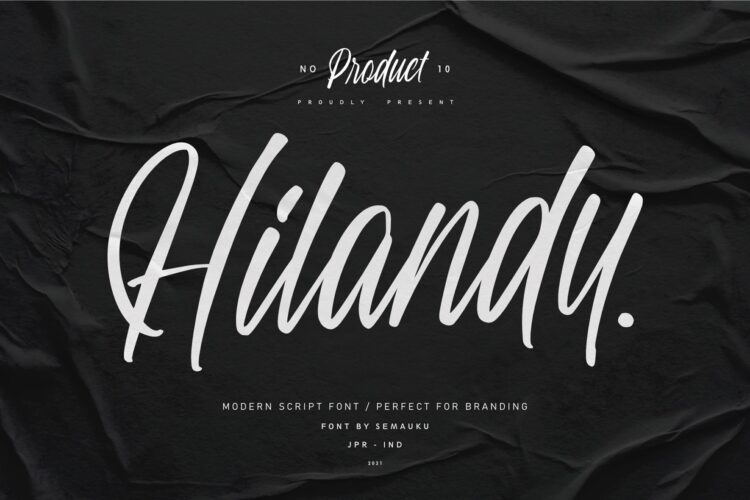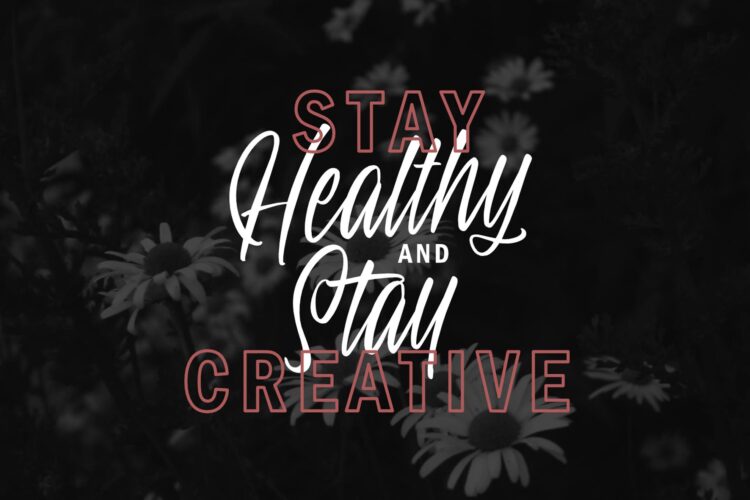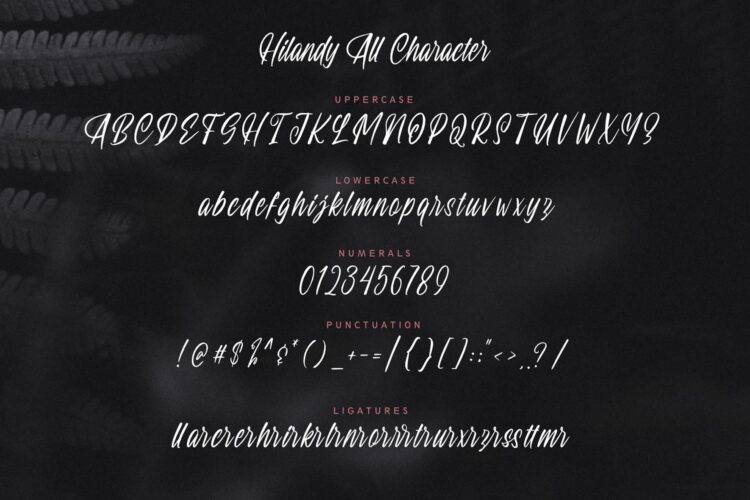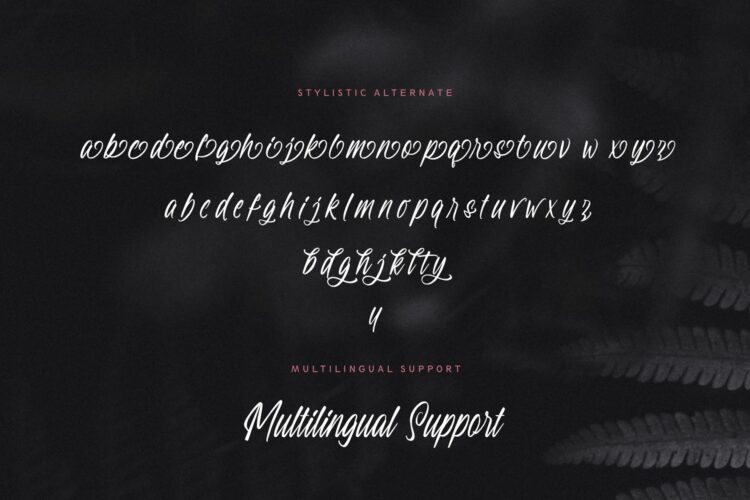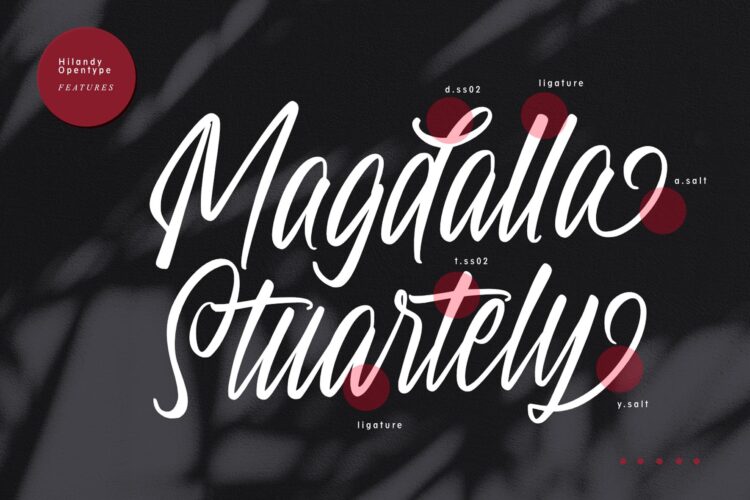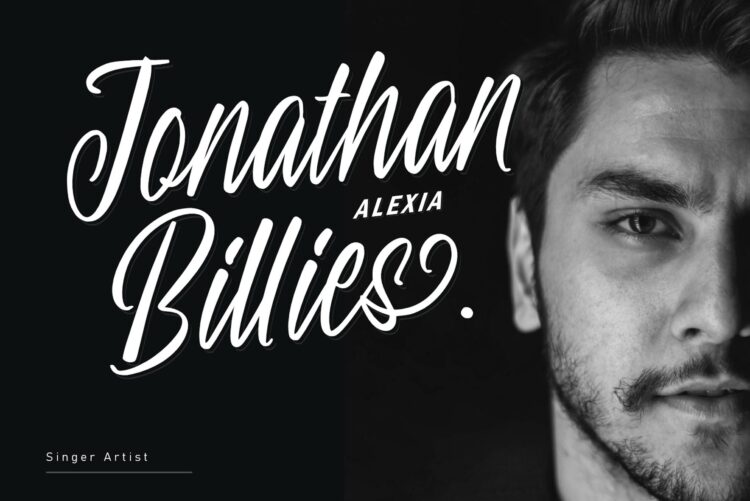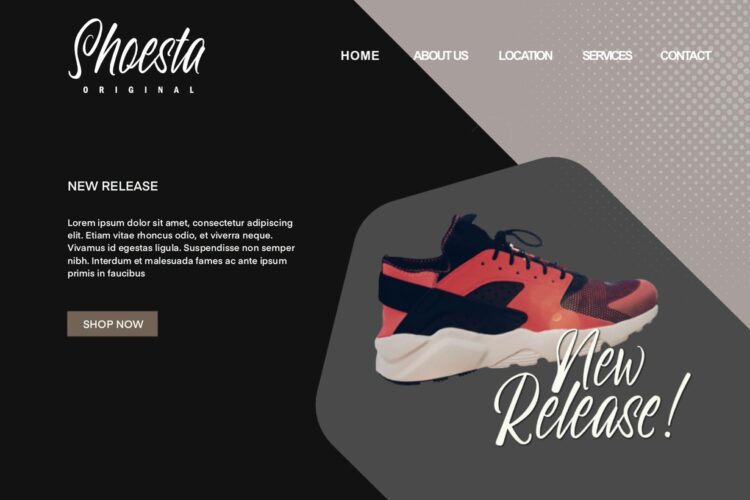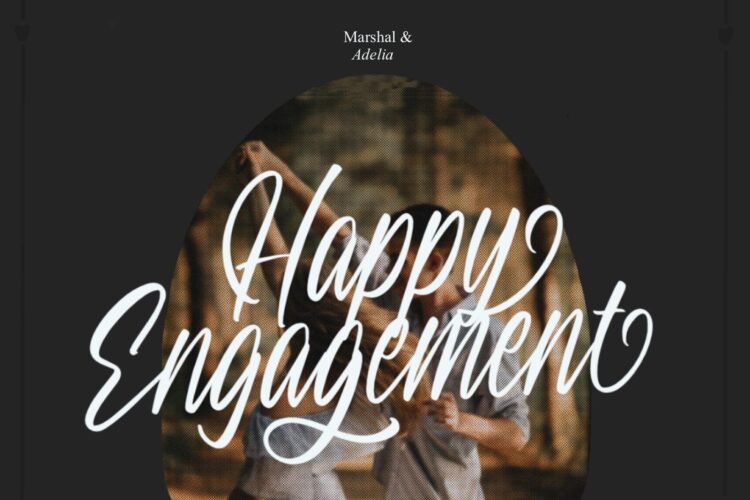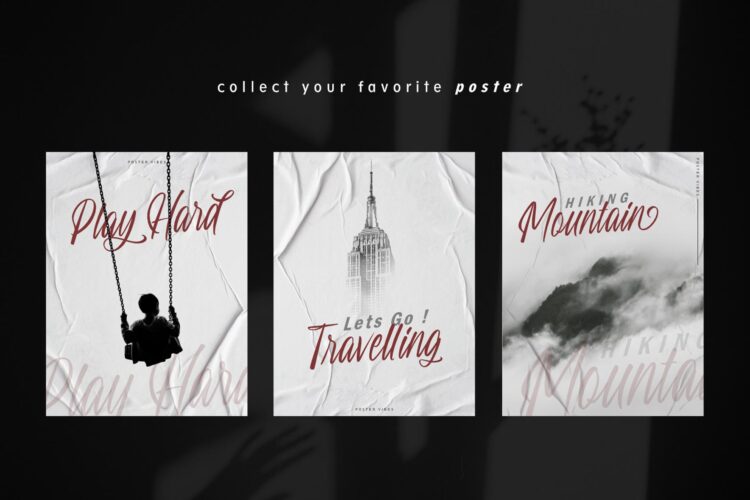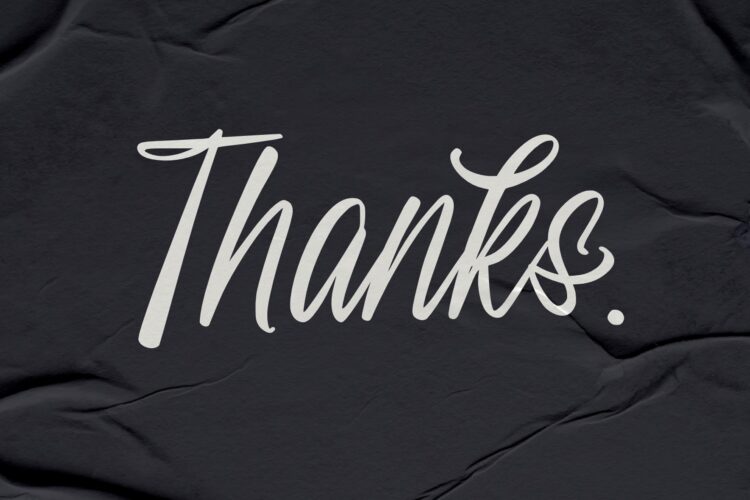
Hilandy
Hilandy Font is a hand-lettered Modern Script Font. This font is awesome for your creative project such as Quotes, Logotype, Branding, Packaging, Design, Social Media Post, Merchandise, Apparel, label, and much more.
Features :
– Uppercase
– Lowercase
– Numerals
– Punctuation
– Multilingual Language
– Opentype Features